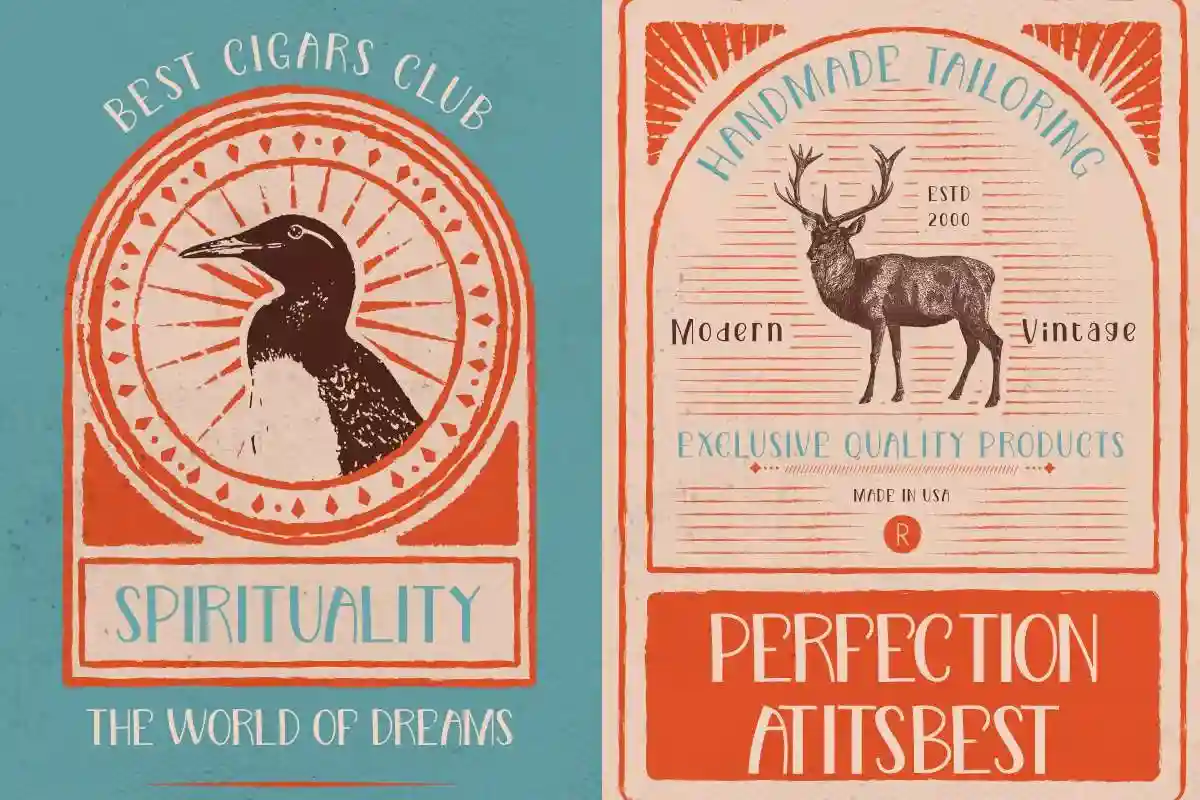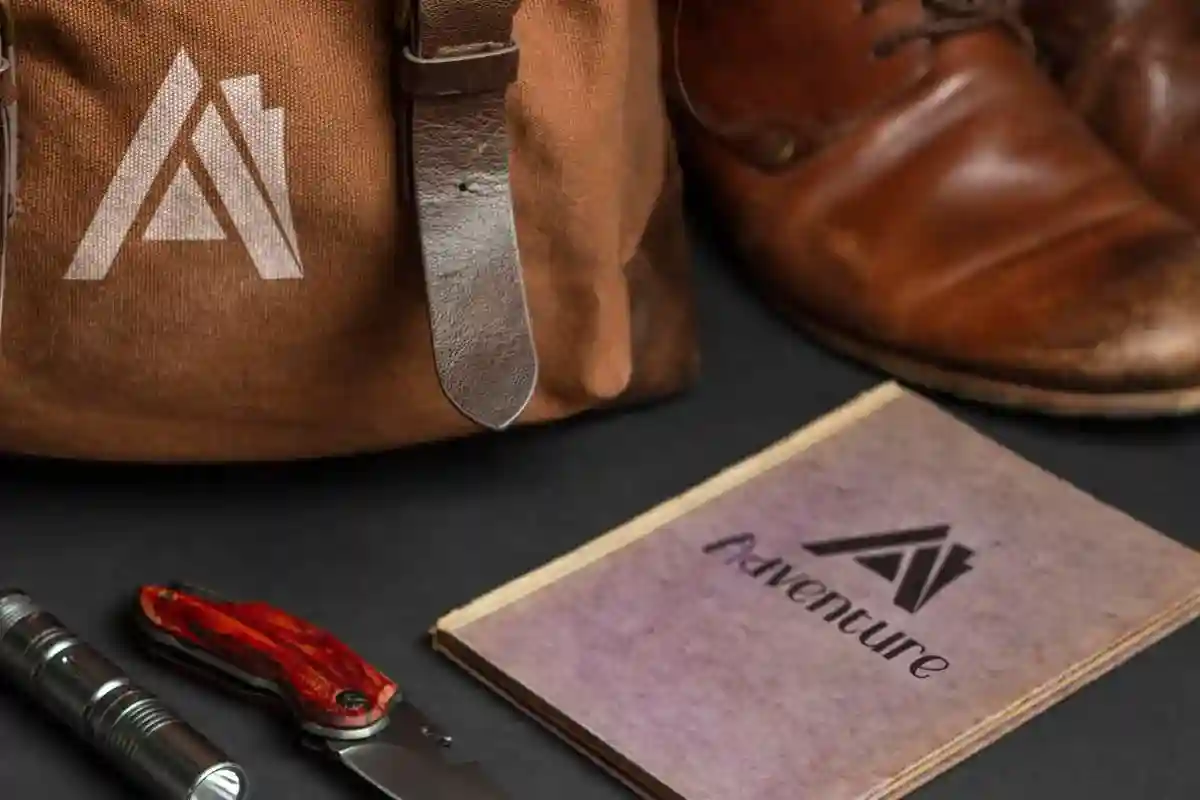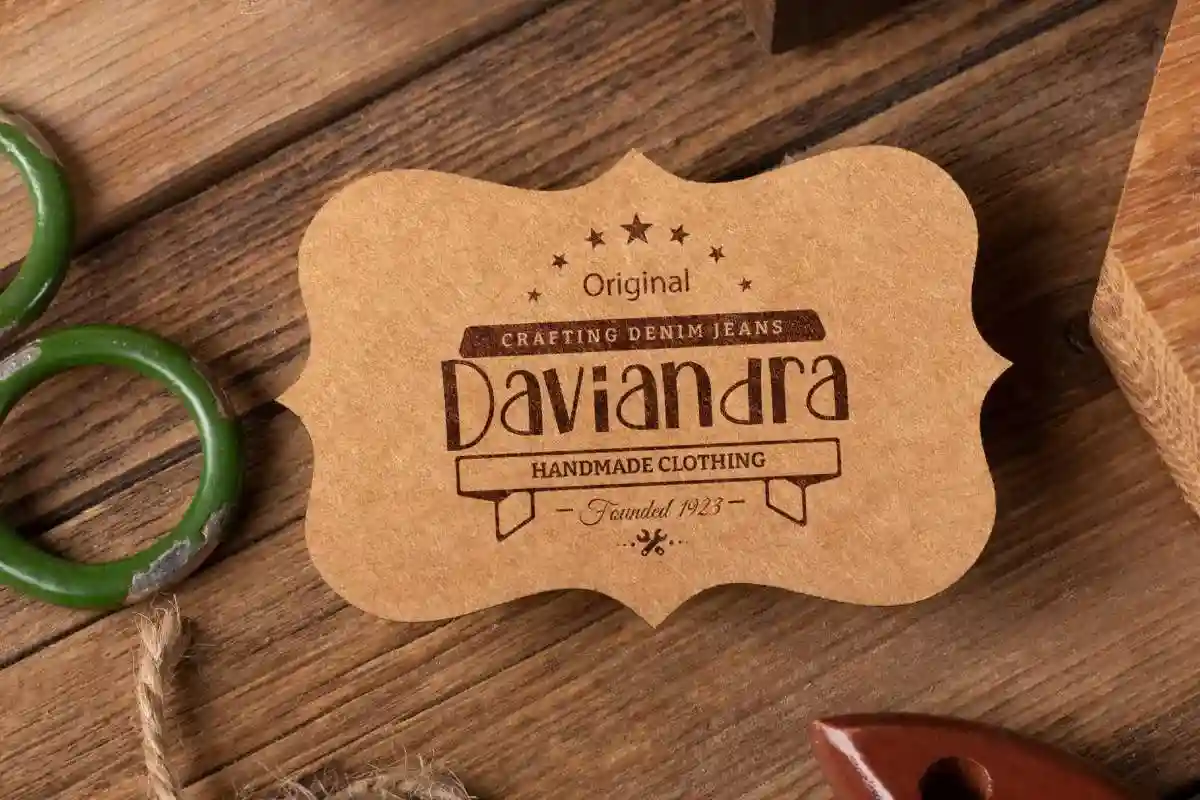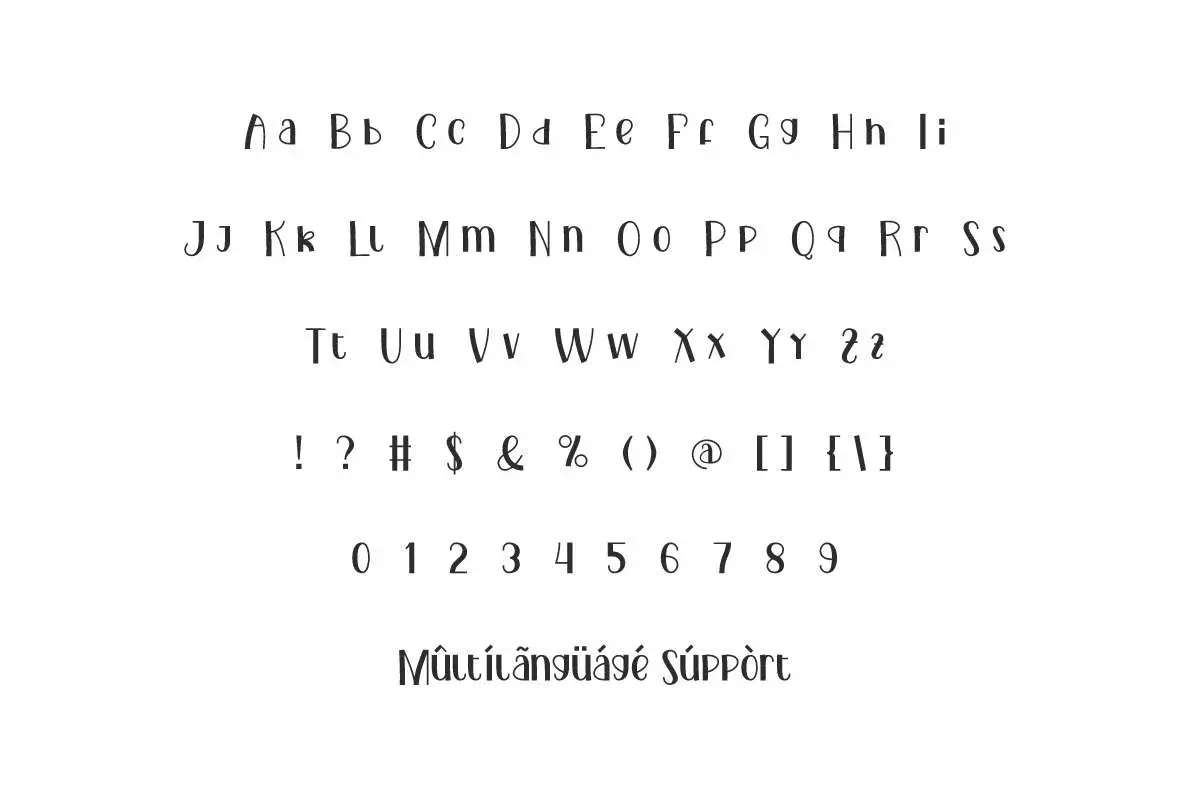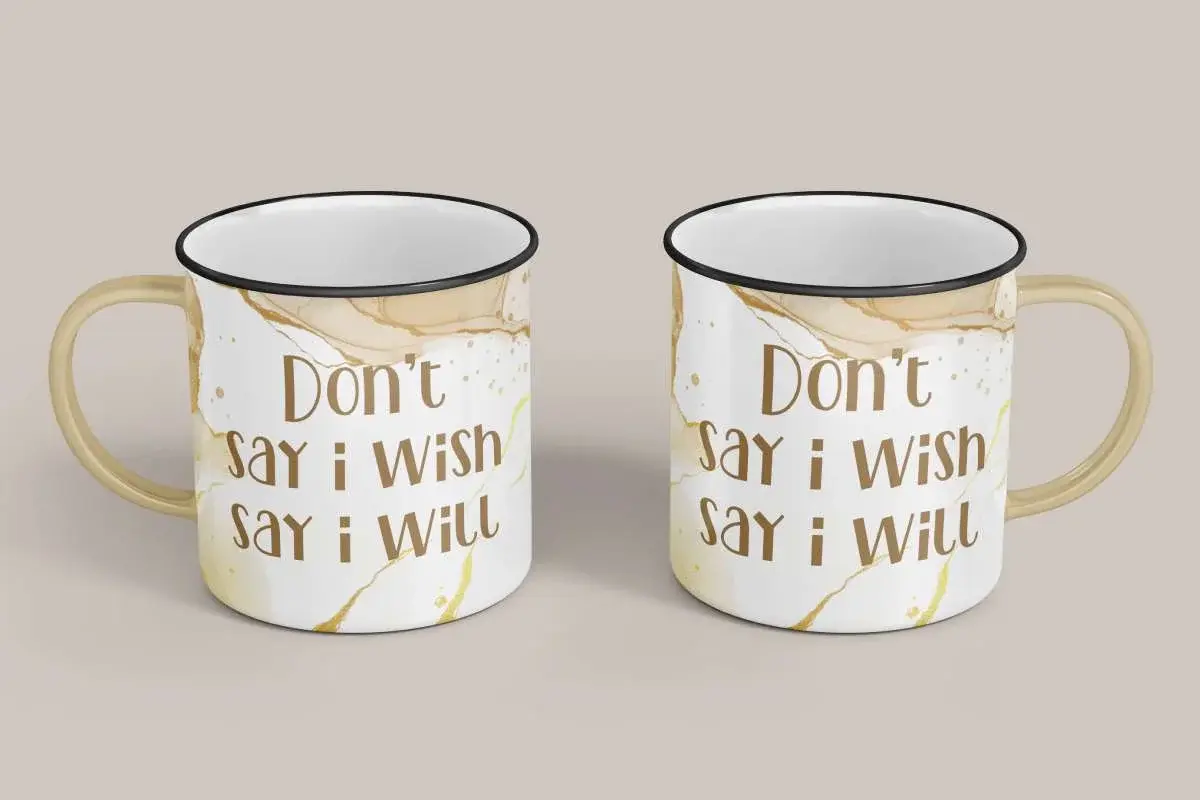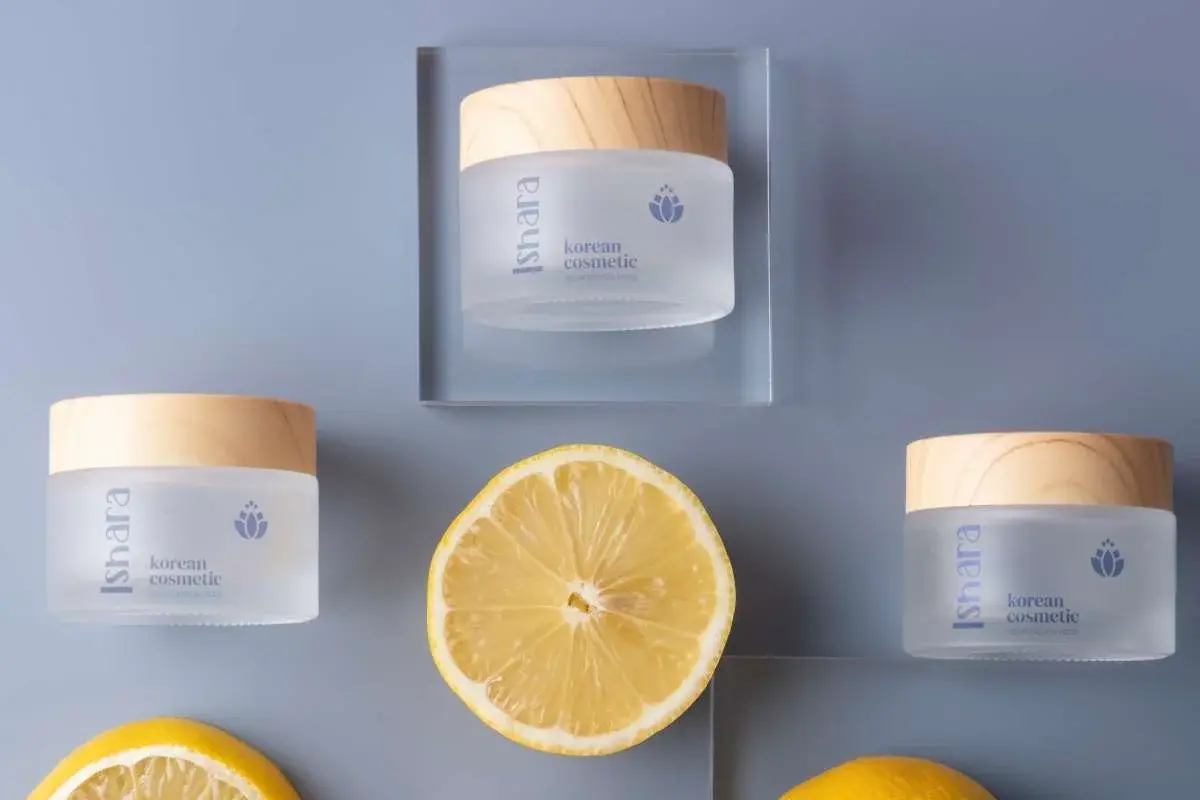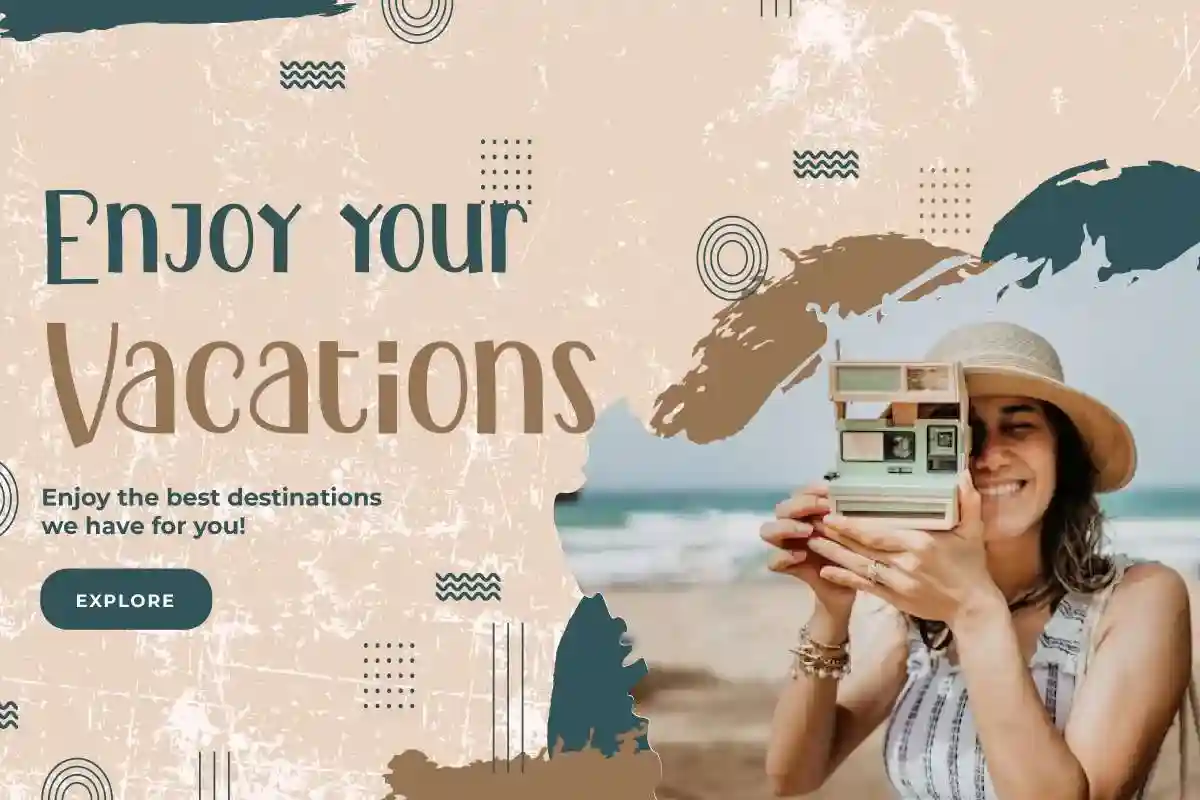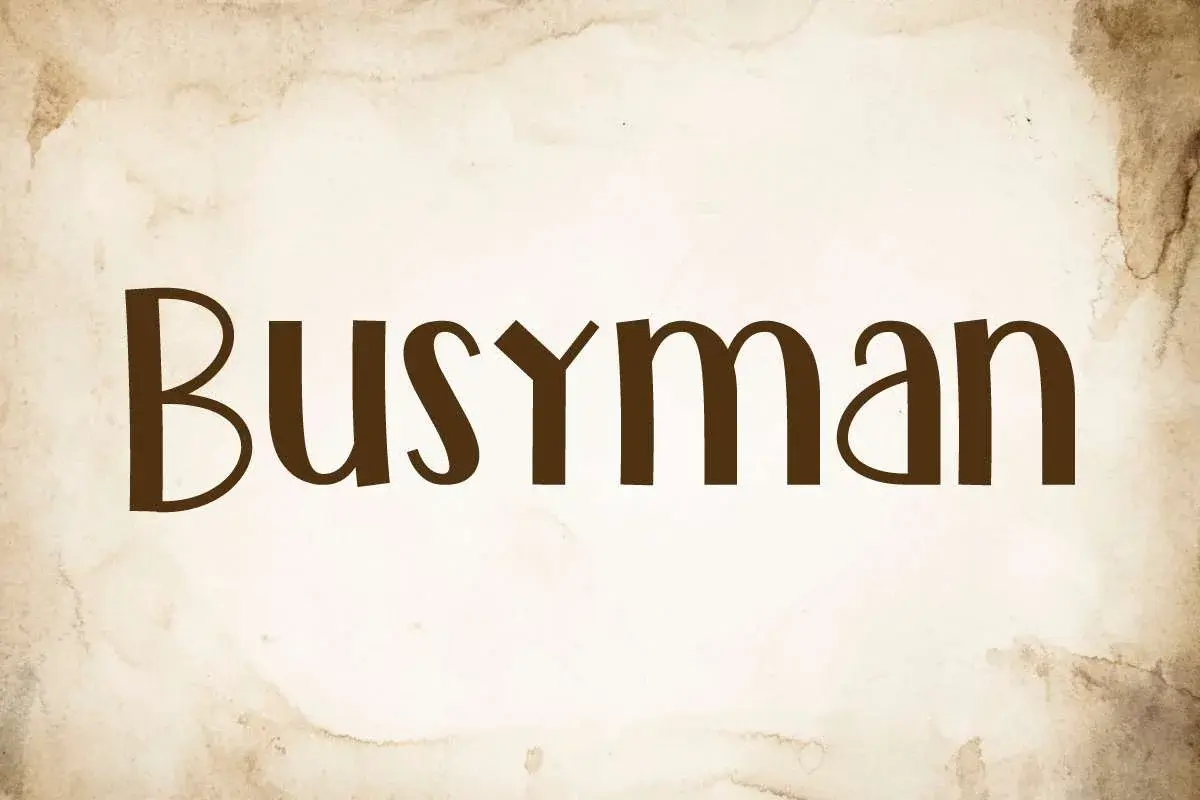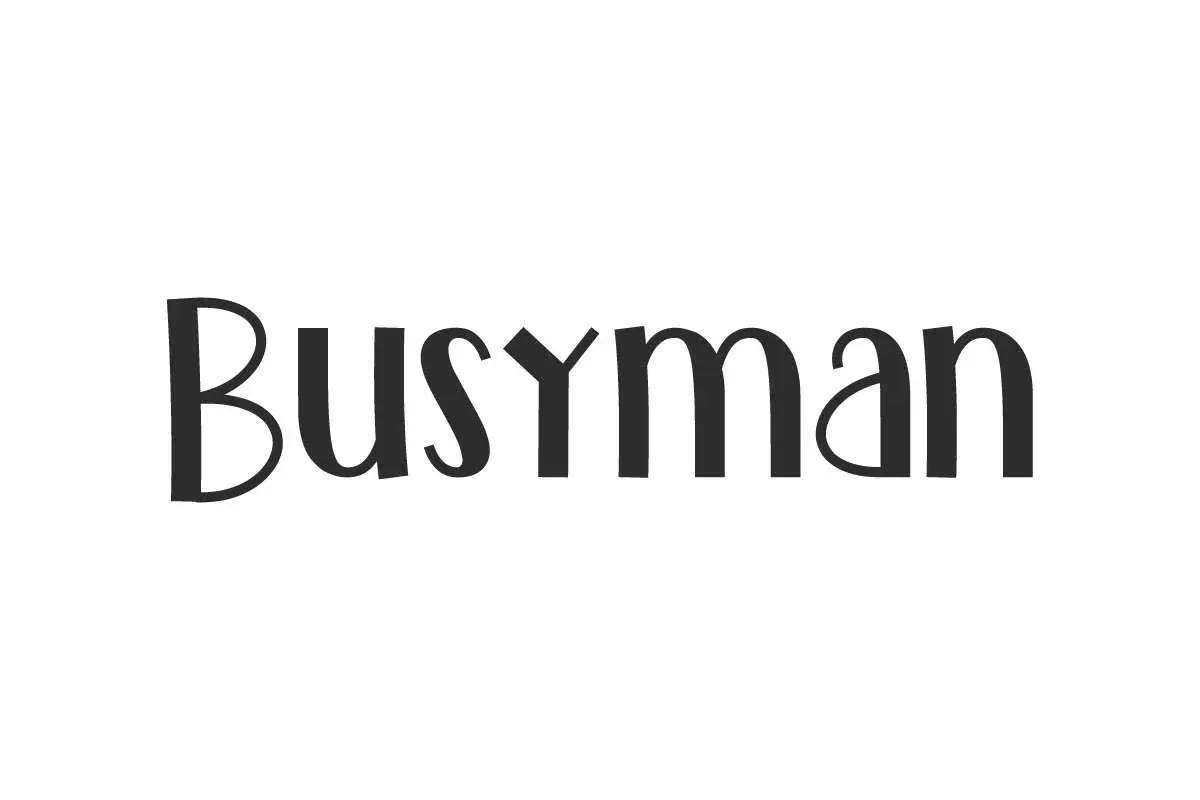
Busyman Font is a classic retro font that ready to impress you. It will suitable for fashion brands, cosmetic, artist, comic, travel agency, etc. Simply Wow your audience and costumer with this unique font
Busyman Font is a special comic style retro neat sans serif display font inspired by a classic designs. This font is a cute simple, showing one side of the bold then thinning. Not only that, this font is also considered a blend of modern & retro or in other words retro contemporary so that it presents its own uniqueness that makes it timeless. It will be perfect for your project, such as brand logo, cover, label, packaging design, poster, sticker, title, website, etc.
Busyman Font comes with a full set of Uppercase and Lowercase Basic Characters, Number, Punctuation, Symbol. Use this for your business industry such as camping tools, cigarette, leather clothes, printing, publishing, restaurant, skincare, travel agency, etc.